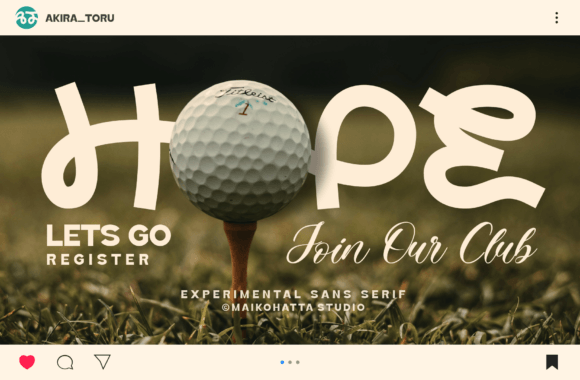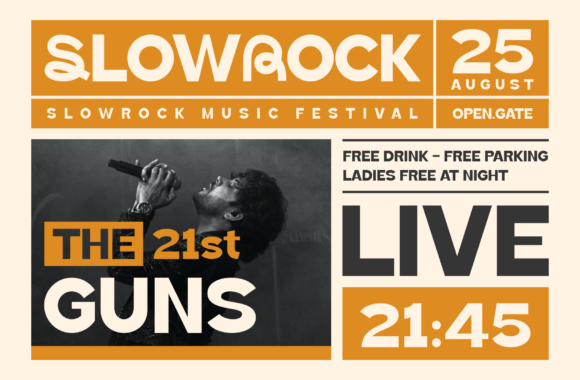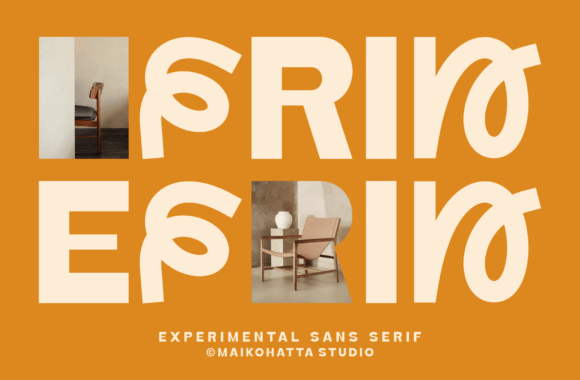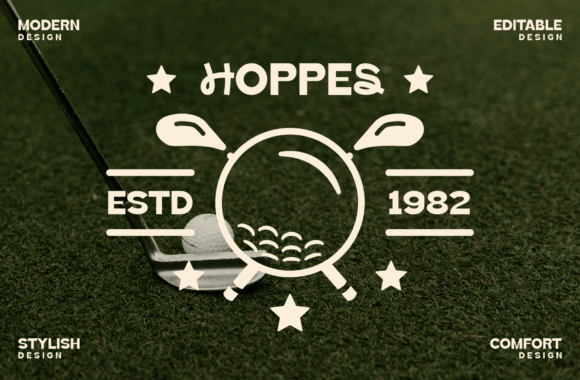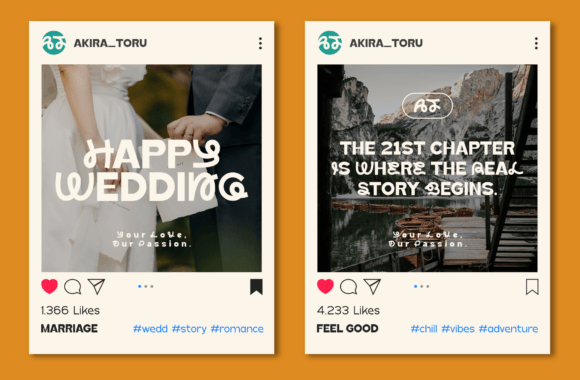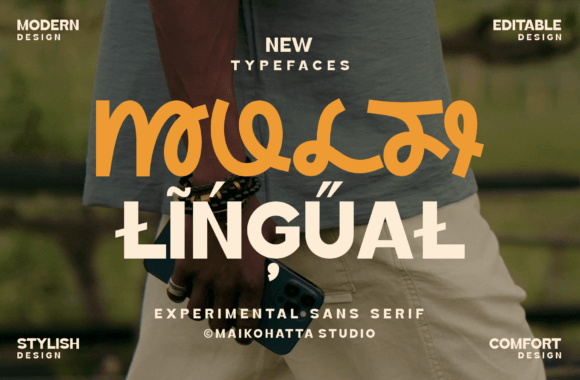
Introducing Akira Toru: The Ultimate Sans Serif Display Font for Modern Design
In the world of graphic design and modern typography, a font can make all the difference in creating a lasting impression. That’s why we’re excited to introduce our new product, Akira Toru – a versatile and stylish sans serif display font that’s perfect for a wide range of design contexts. With its clean, professional, and contemporary look, Akira Toru is set to become a go-to choice for designers and crafters looking to elevate their designs.
What is Akira Toru Font?
Akira Toru is a sans serif display font that boasts simplicity and visual appeal. Its sleek and modern design makes it an excellent choice for designers who want to create a professional and contemporary look in their designs. Whether you’re working on a branding project, a website, or a marketing material, Akira Toru is a flexible font that can adapt to various design contexts.
Key Features of Akira Toru Font
• Clean and Professional Design: Akira Toru’s sans serif design ensures that your text looks clean and professional, making it perfect for use in business cards, brochures, and other marketing materials.
• Contemporary Look: The font’s modern design ensures that your text looks contemporary and fresh, making it ideal for use in digital platforms, such as websites and social media.
• Simple and Visually Appealing: Akira Toru’s simplicity and visual appeal make it easy to read and understand, ensuring that your message gets across effectively.
• Flexible: The font’s versatility makes it suitable for use in a wide range of design contexts, from branding and advertising to packaging and web design.
Why Choose Akira Toru Font?
With so many fonts available in the market, why should you choose Akira Toru? Here are a few reasons:
• Uniqueness: Akira Toru’s unique design sets it apart from other sans serif fonts, ensuring that your designs stand out from the crowd.
• Legibility: The font’s clean design ensures that your text is easy to read, even at small sizes.
• Customization: Akira Toru is highly customizable, allowing you to adjust the font size, color, and style to suit your design needs.
Use Cases for Akira Toru Font
Akira Toru is a versatile font that can be used in a variety of design contexts. Here are some use cases:
• Branding and Logo Design: Use Akira Toru to create a professional and modern logo that reflects your brand’s values and personality.
• Web Design: Akira Toru is perfect for use in web design, where its clean and contemporary design can help create a seamless user experience.
• Marketing Materials: Use Akira Toru in your marketing materials, such as brochures, flyers, and business cards, to create a professional and cohesive look.
• Packaging Design: Akira Toru’s simplicity and visual appeal make it an excellent choice for packaging design, where it can help create a clean and modern look.
In conclusion, Akira Toru is a versatile and stylish sans serif display font that’s perfect for designers and crafters looking to create a professional and contemporary look in their designs. With its clean design, simplicity, and visual appeal, Akira Toru is an excellent choice for a wide range of design contexts. Whether you’re working on a branding project, a website, or a marketing material, Akira Toru is a font that’s sure to impress.